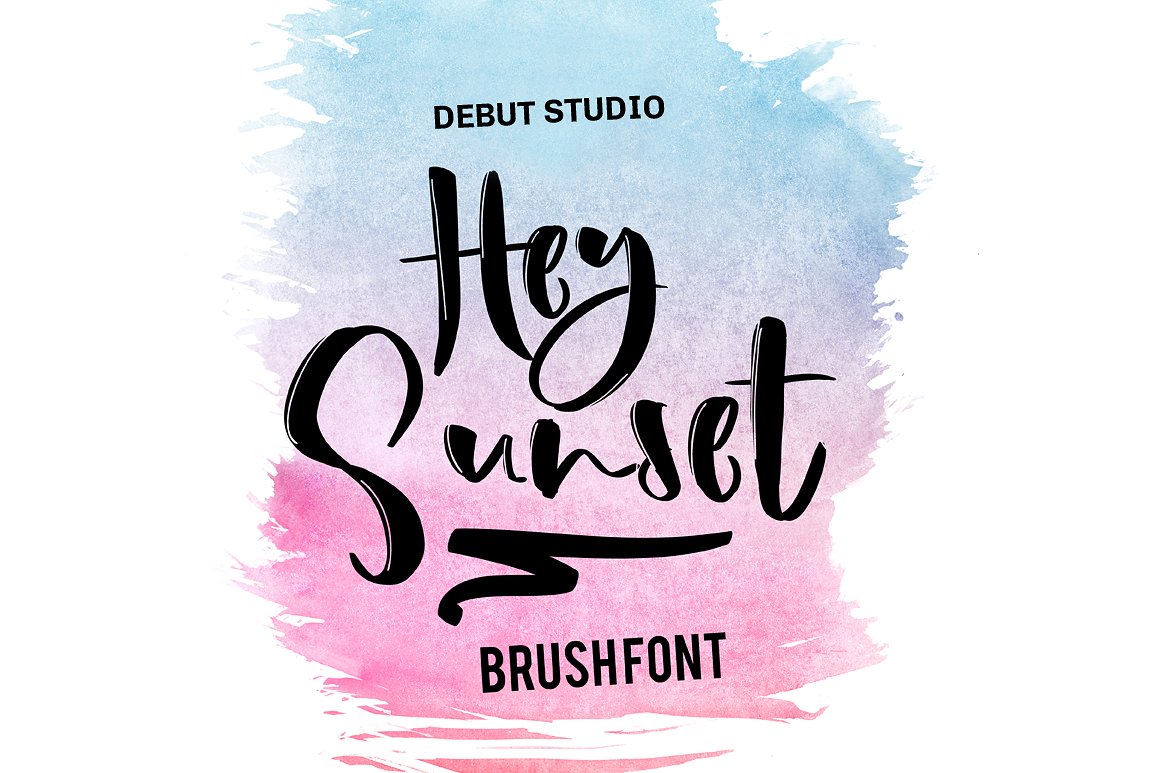
Hey Sunset Brush Font
Hey Sunset Brush Font The Simply brush font for your awesome design, this font so suitable for TShirt Design, Brochure, Mug Design, Posters, and etc.
| Classification: | Brush Fonts, Script Fonts |